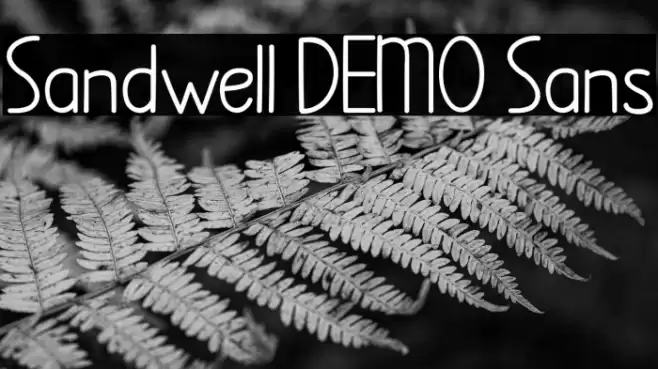
Sandwell DEMO Sans Font
Sandwell DEMO Sans Description
This font features a playful and modern sans-serif style with a clean and minimalist aesthetic. The characters are tall and narrow, giving it a distinctive elongated appearance. The strokes are consistent in width, providing a uniform look across all letters. The rounded edges add a friendly and approachable feel, making it suitable for casual and informal designs. The font maintains a balance between simplicity and uniqueness, making it versatile for various applications. Its legibility is high, even at smaller sizes, due to the clear and open design of each character.
A modern, playful sans-serif font with tall, narrow characters and rounded edges from Regular fonts.
- Proposed Projects: Ideal for children's books, playful branding, casual invitations, and modern web design.
- Use Case: Headlines, Logos, Web design